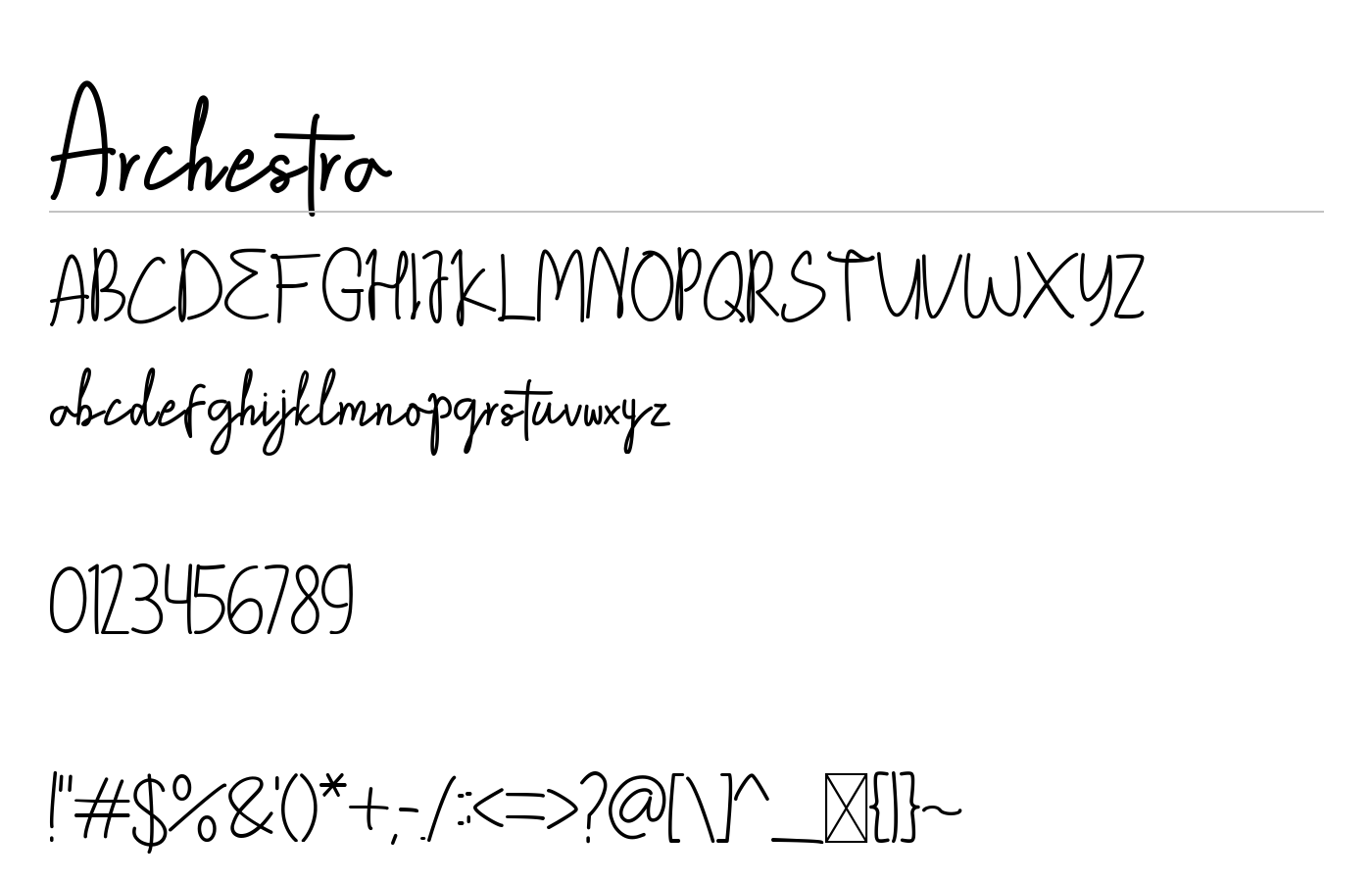
Archestra is a playful and casual handwritten font characterized by its thin, irregular strokes and tall, narrow letterforms. It brings a friendly, approachable feel with a natural, hand-drawn style perfect for creative, informal designs such as personal projects, greeting cards, or lifestyle branding. Its unique personality and clear readability also make it suitable for websites and social media where a personal touch is desired.
Archestra Font